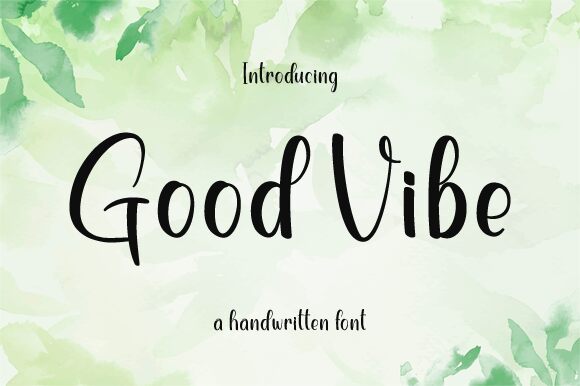
Good Vibe, designed by Nirmala Creative, is a handwritten font that exudes charm and personality. With its semi-light weight, it offers a breezy and approachable aesthetic that is both inviting and easy on the eyes. The free-flowing letters mimic the quality of personal handwriting, making it ideal for projects seeking to add a touch of intimacy and warmth.
The style of Good Vibe strikes a balance between casual elegance and playful sophistication. Its handwritten nature makes it perfect for invitations, greeting cards, branding materials, or any creative project that requires a human touch. From the loops in its lowercase letters to the distinctively crafted ascenders and descenders, this font manages to capture an essence of laid-back refinement.
Good Vibe's versatility extends across digital platforms to print media, fitting seamlessly into a variety of design contexts while maintaining readability and visual interest. Whether you're looking to inject some personality into your social media posts or aiming for an artisanal look in printed collateral, Good Vibe offers just the right combination of style and substance.